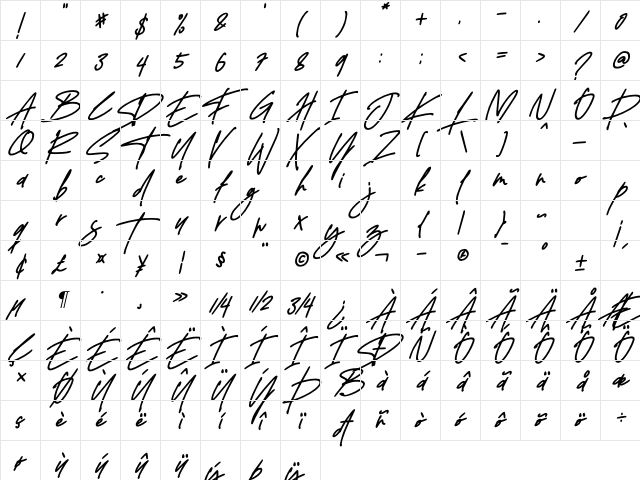
Complete Delistha Signature Italic glyph index. Displaying only characters natively supported by Delistha Signature Italic font.
Delistha Signature is a composed and adaptable typeface that performs quietly and consistently across a wide range of design contexts. The slanted form adds forward momentum and visual energy.
Pro Tip: Use Delistha Signature for emphasis, pull quotes, and subheadings where its slanted energy can add rhythm to the layout.